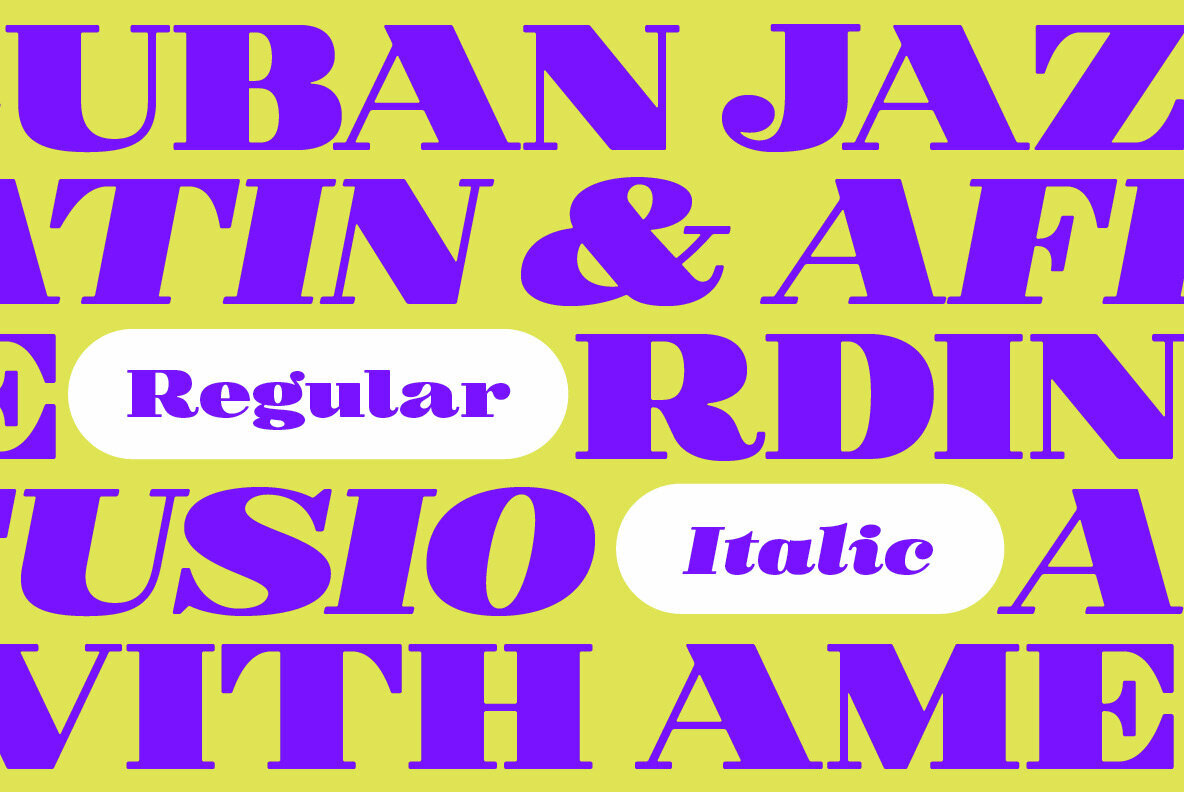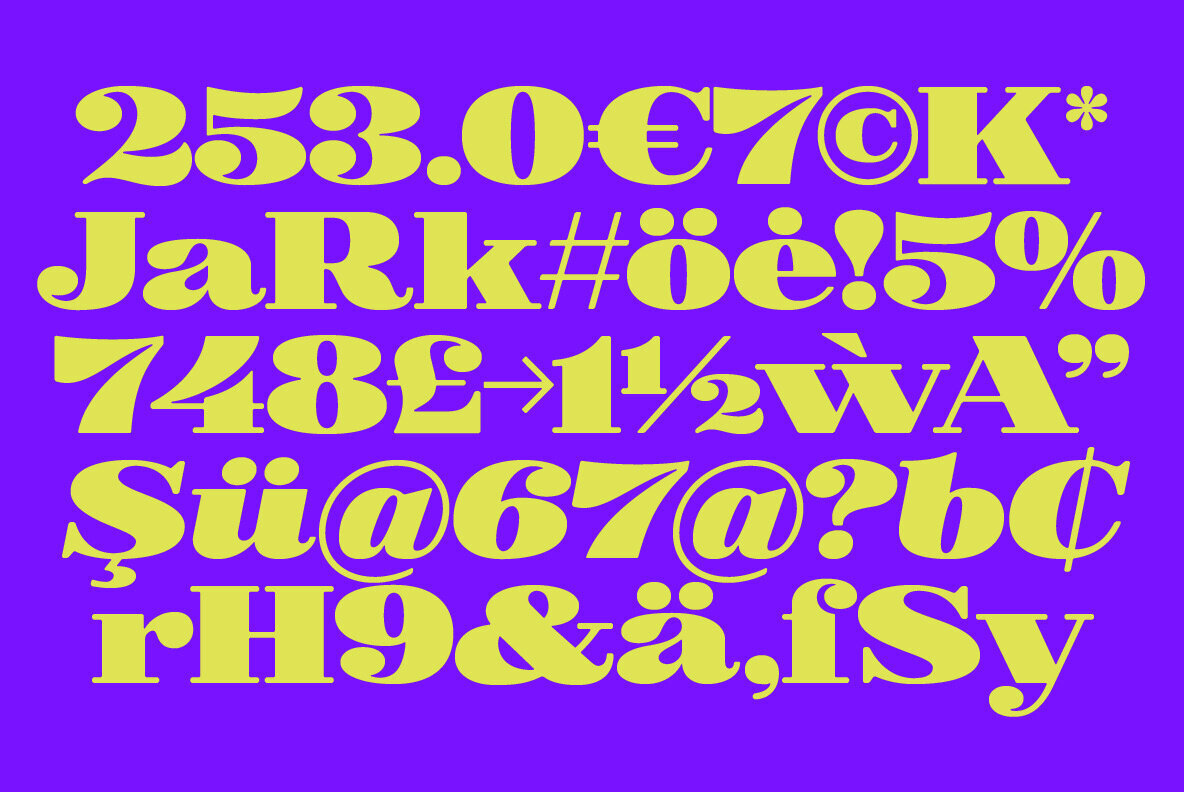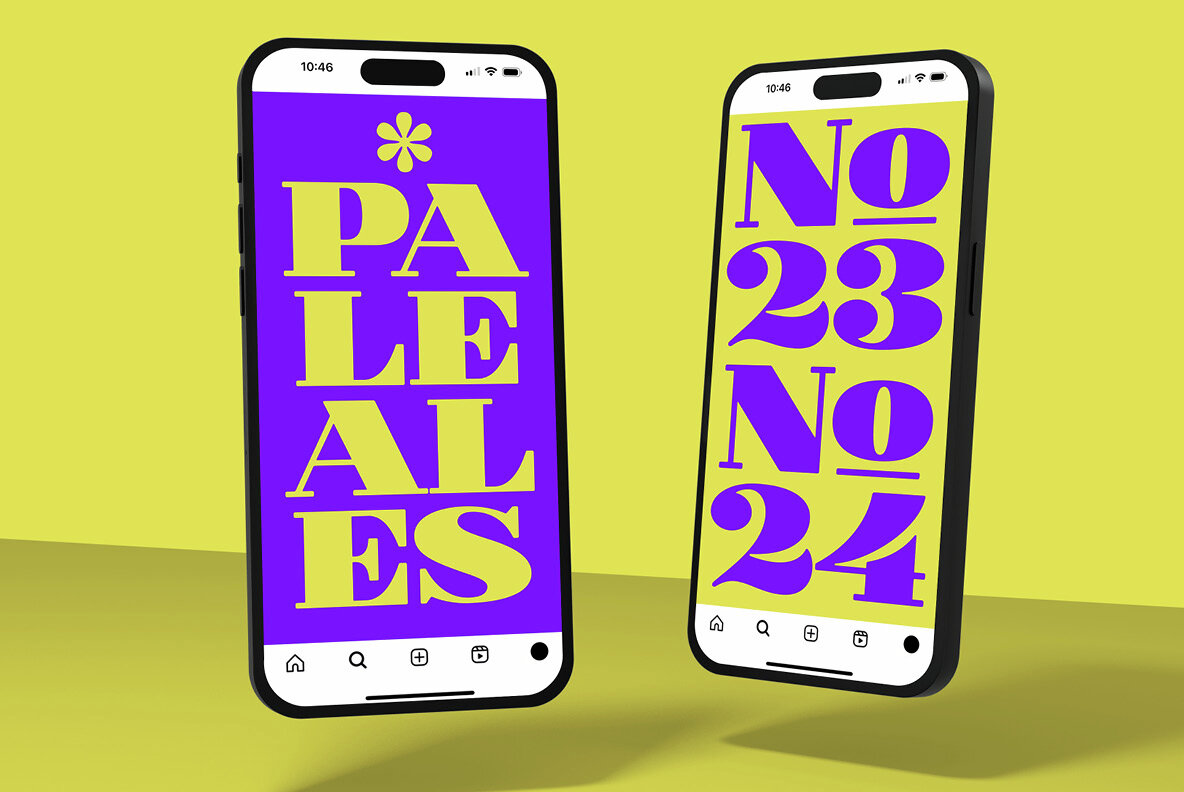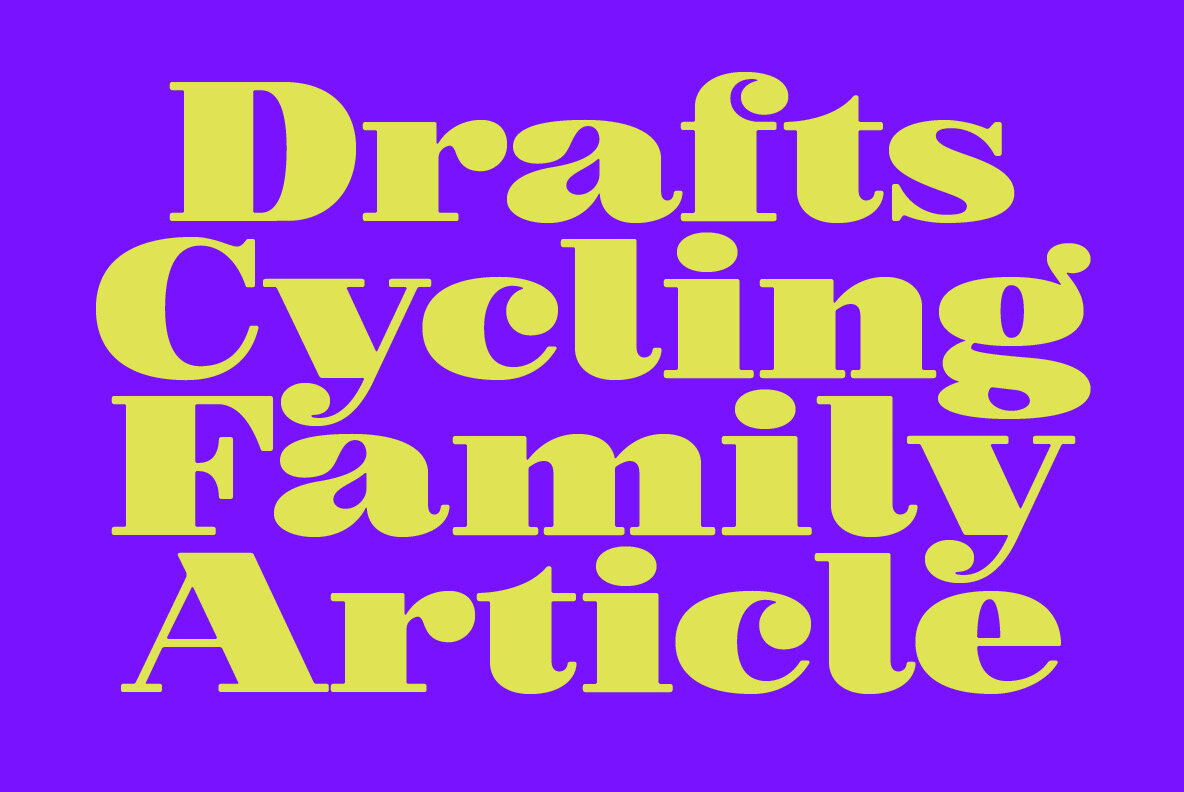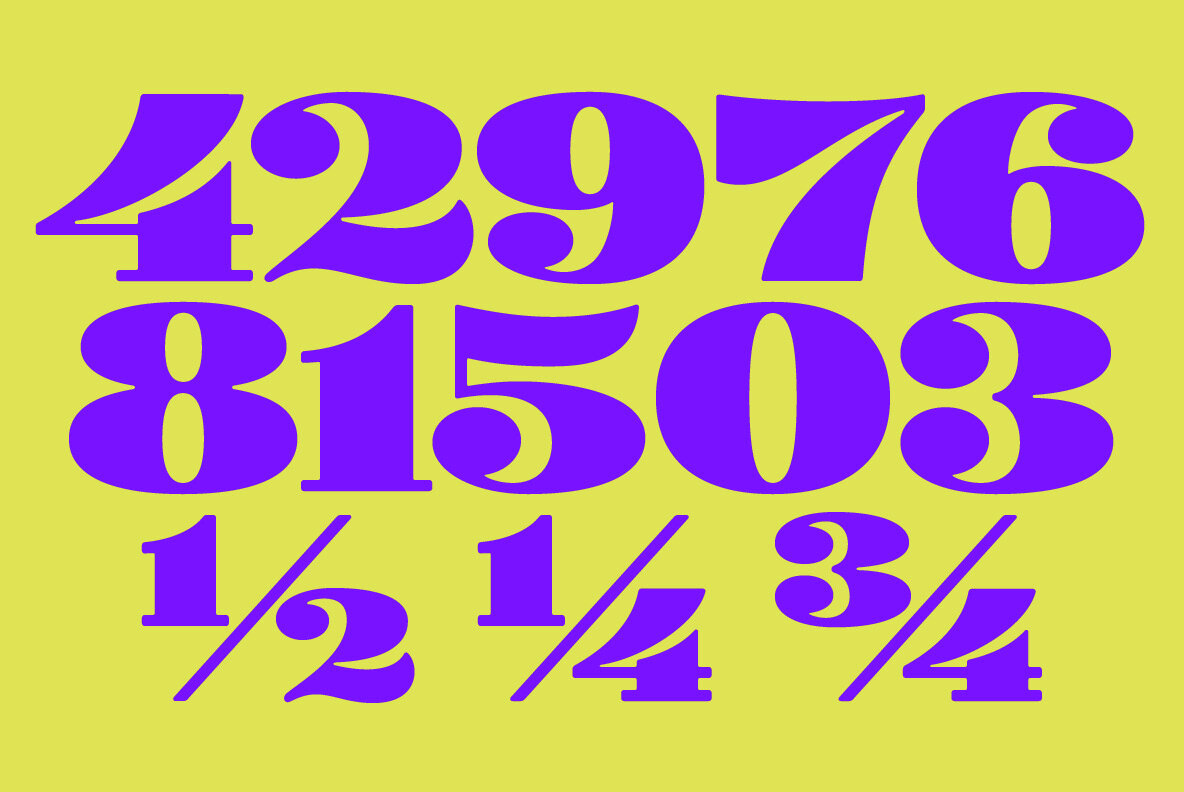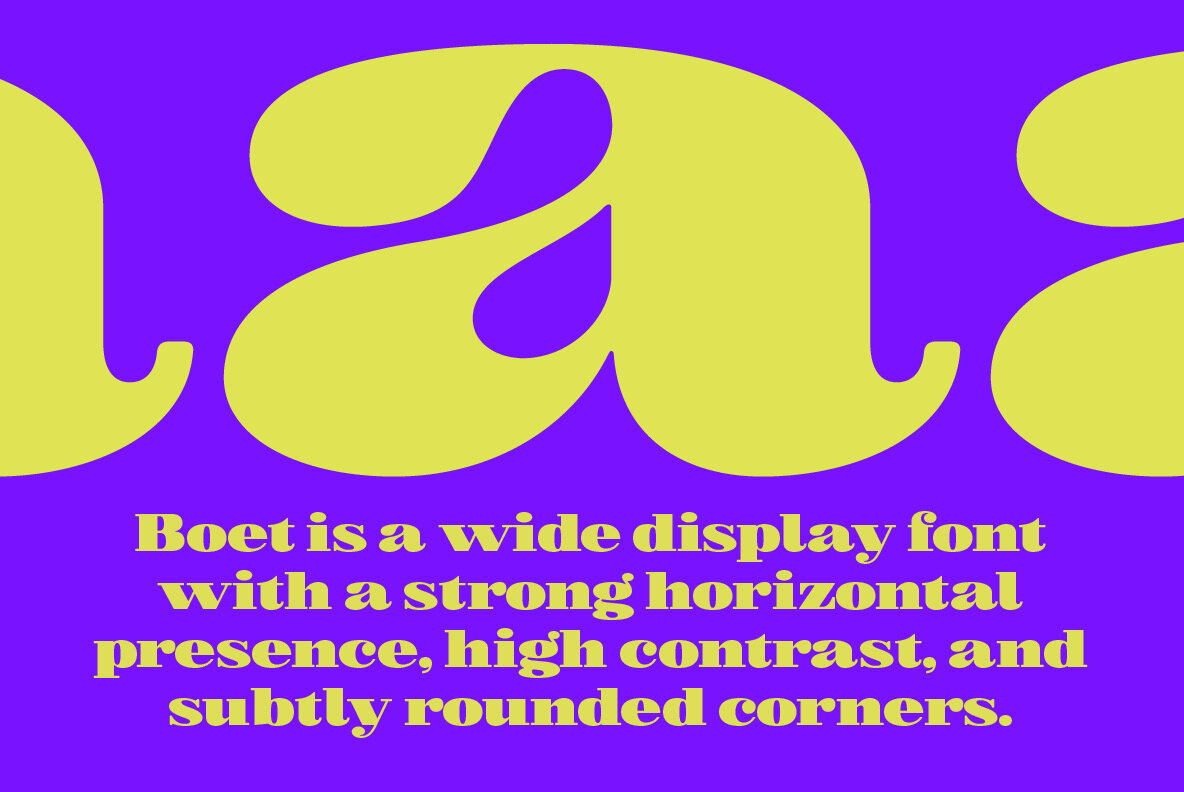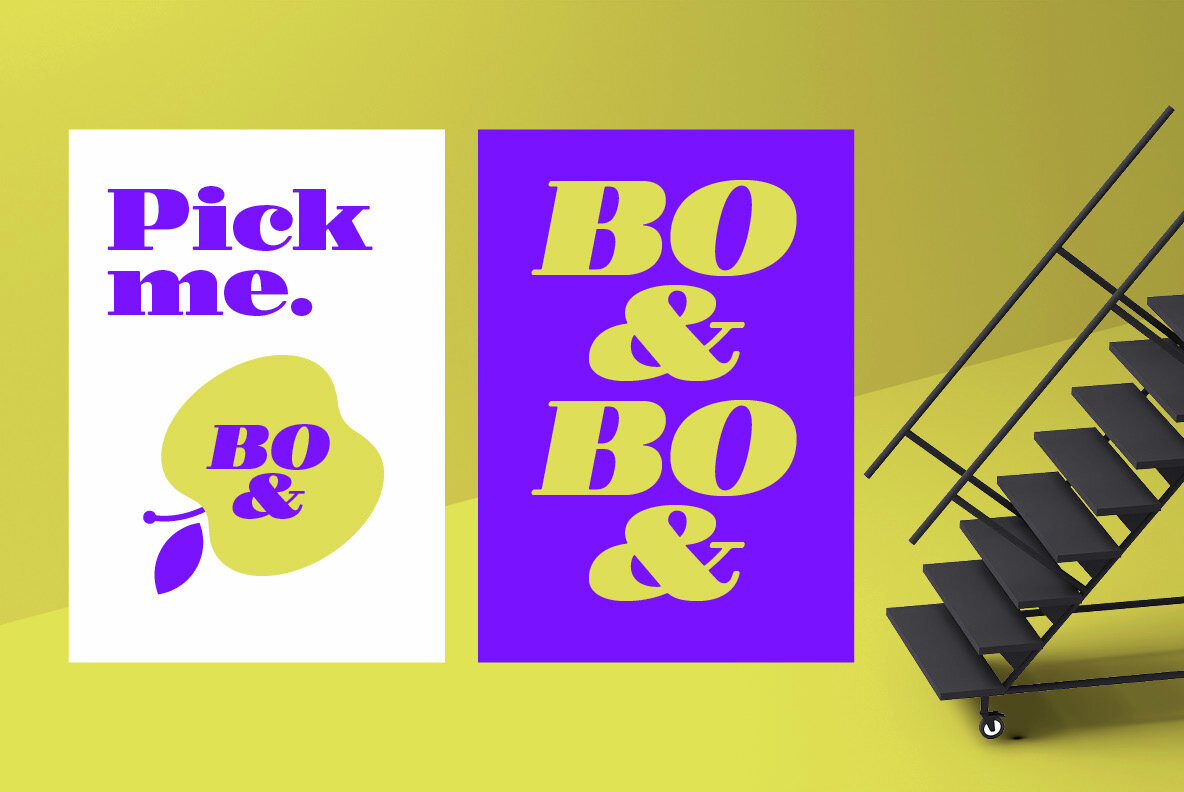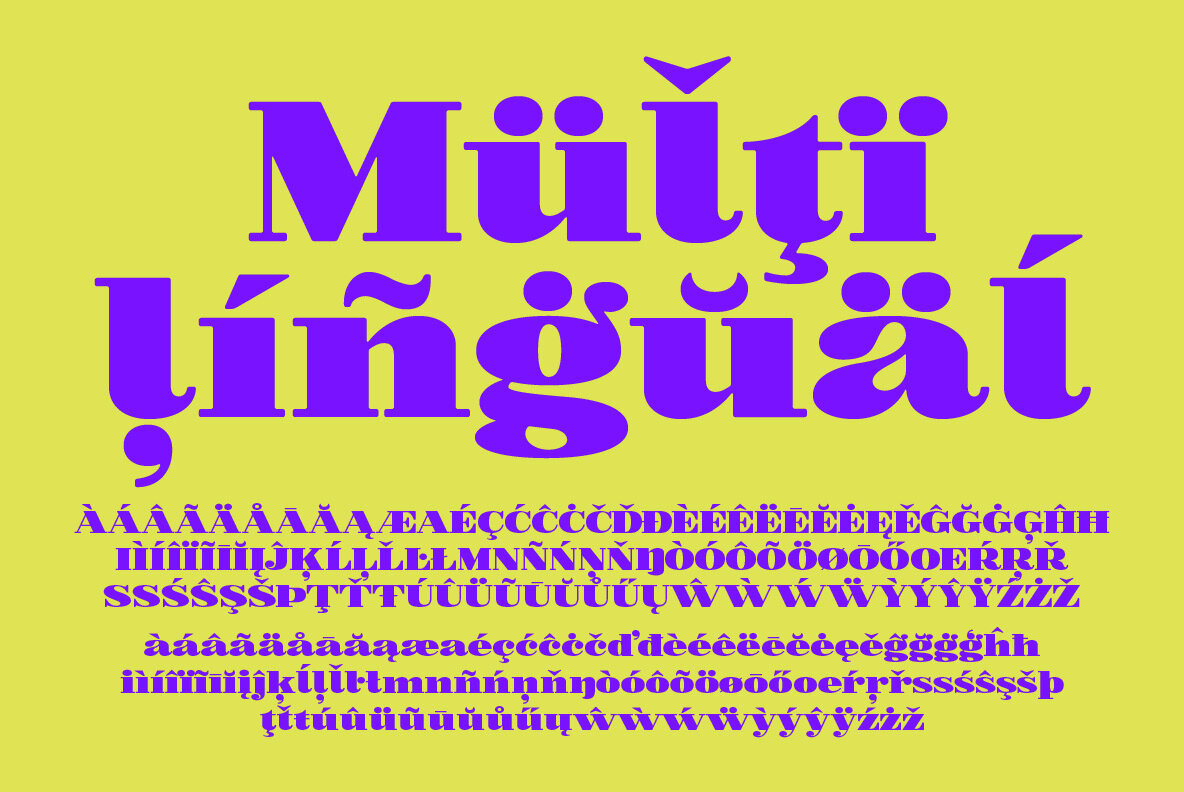
Boet Font
Boet is a wide display font with a strong horizontal presence, high contrast, and subtly rounded corners. It draws inspiration from Chauncey H. Griffith's iconic 1920s Poster Bodoni, as well as various 1960s type designs by Herb Lubalin and John Pistill. This font is perfect for making a statement on packaging, headlines, logos, and other display applications. Available in Regular and Italic.